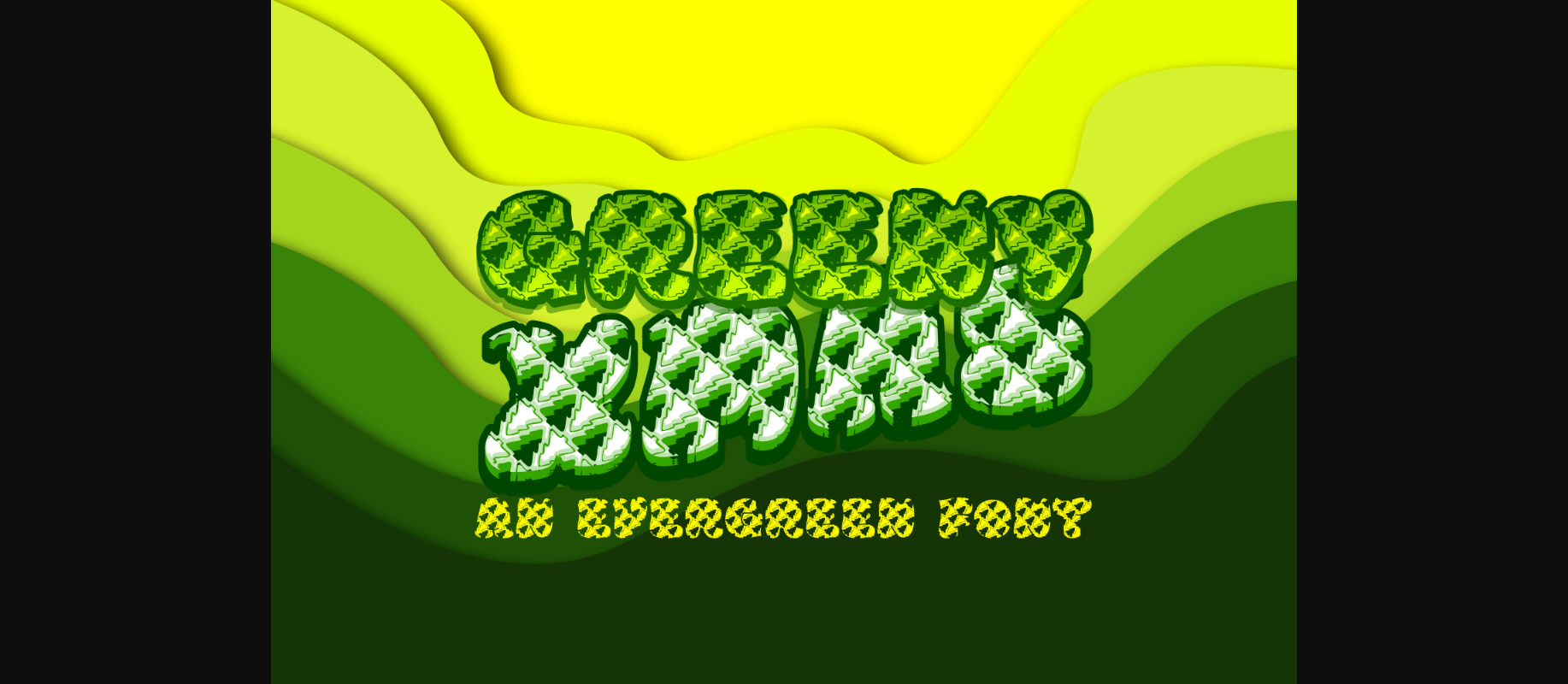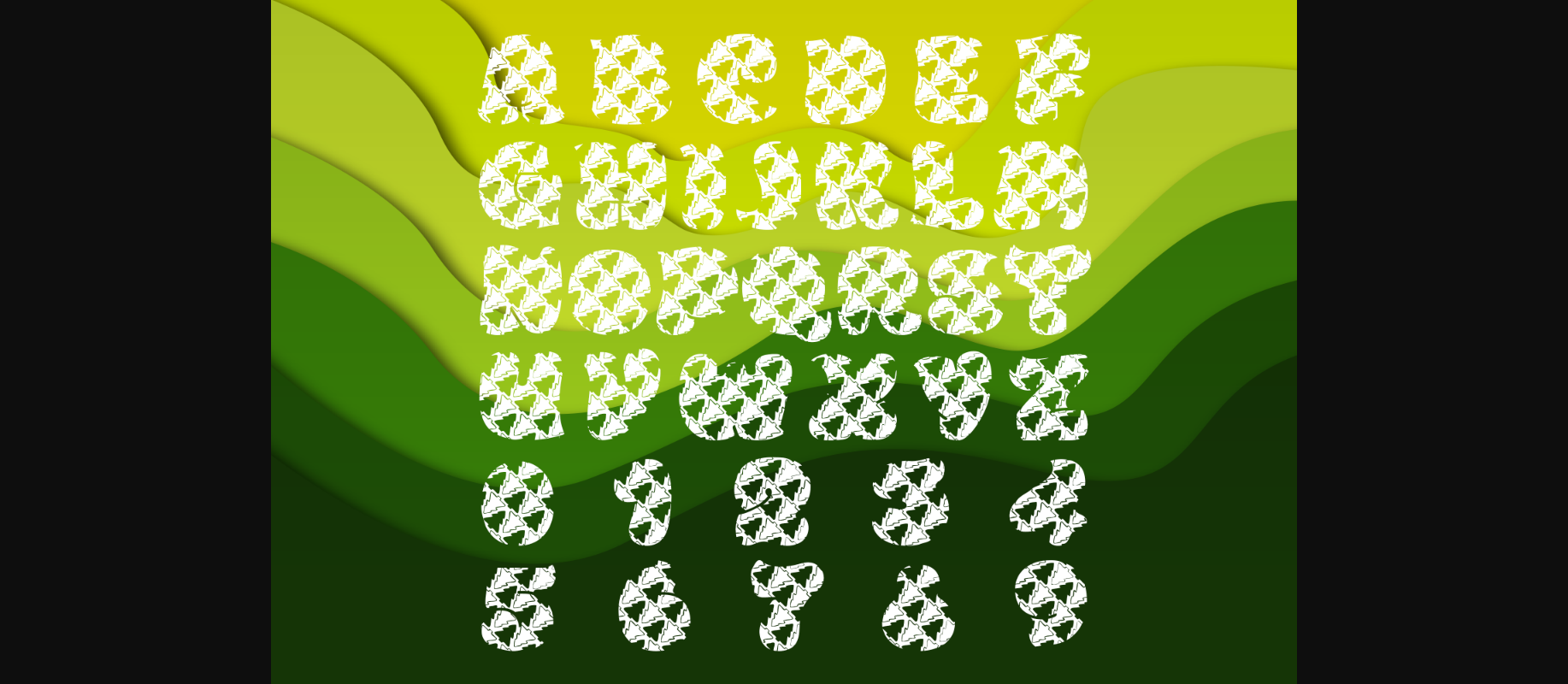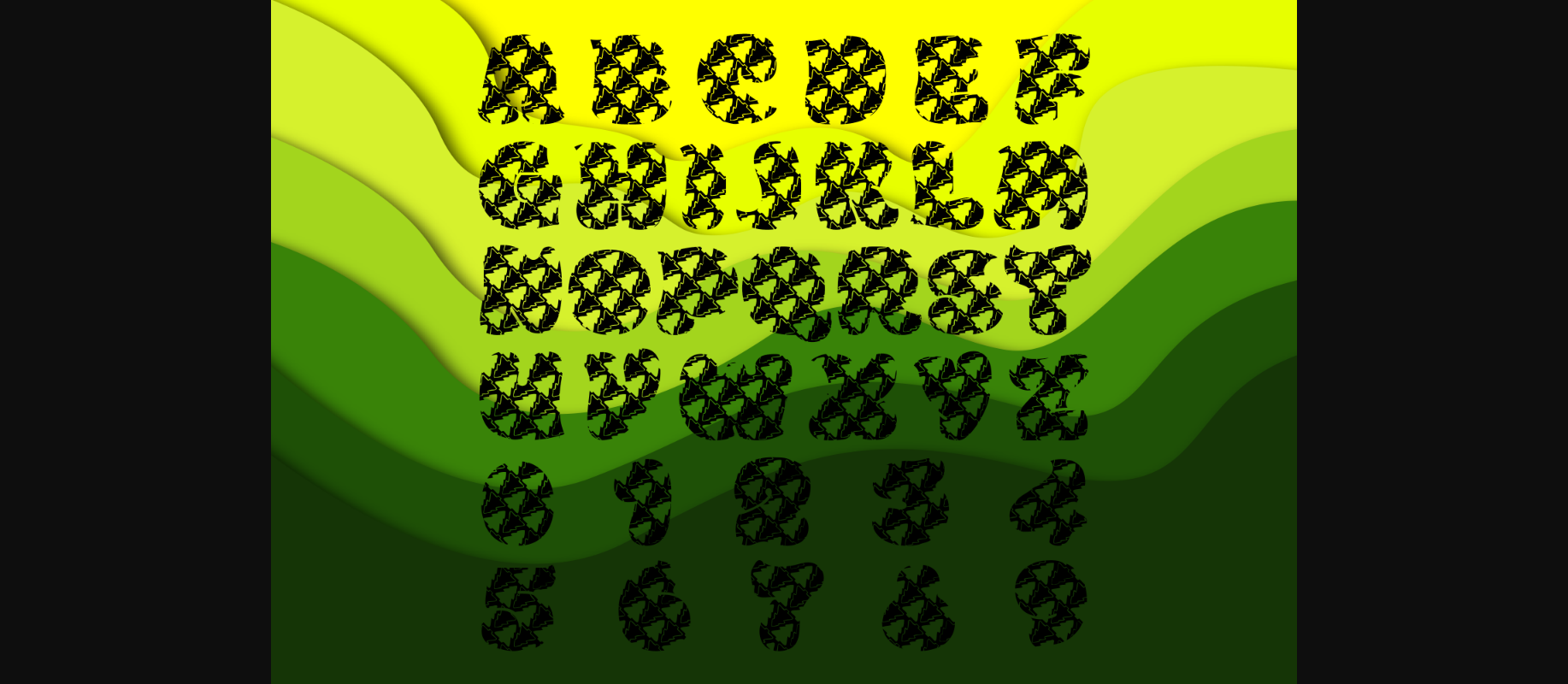
Greeny Xmas Font
About Greeny Xmas Font
Greeny Xmas is an incredibly cool and crafty decorative font. Whether you use it for cartoon related designs, children games or just any creation that requires a lovely touch, this font will be an amazing choice.